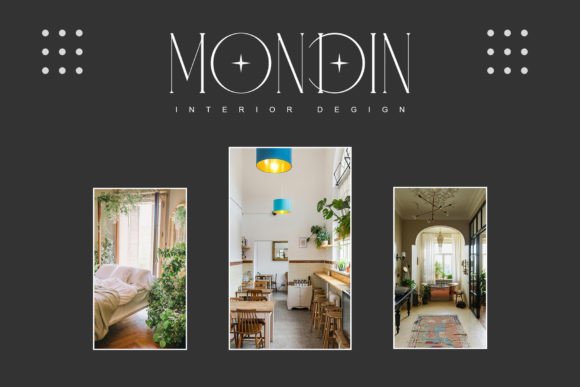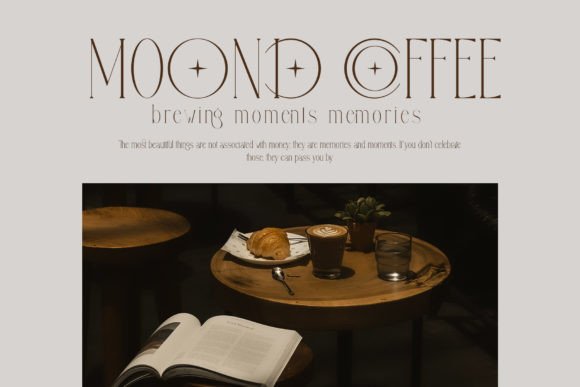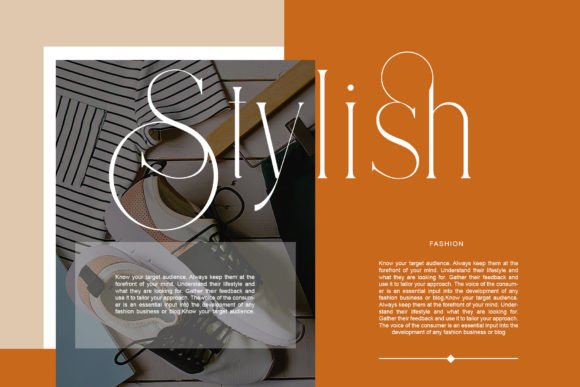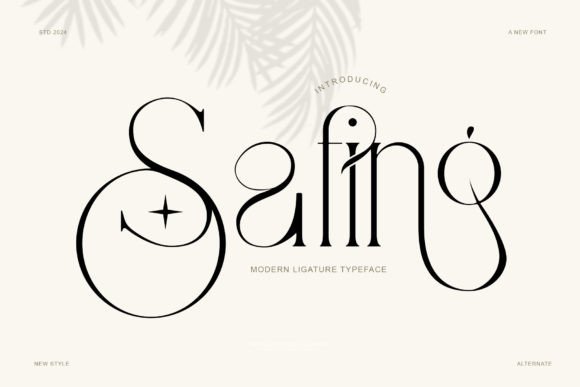
Introduction to Safing Font
Safing is an elegant and classy serif typeface – This font is both modern and nostalgic and works great for logos, magazines, and social media.
Already matched up and ready to be used together for your next design For those of you who need a touch of elegance, stylish, classy, chic, and modernity for your designs, this font was created for you.
Key Features of Safing Font
Why Choose Safing Font?